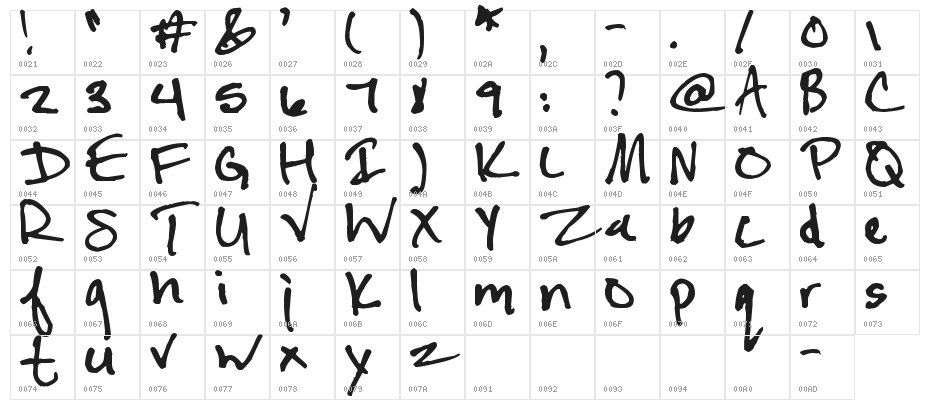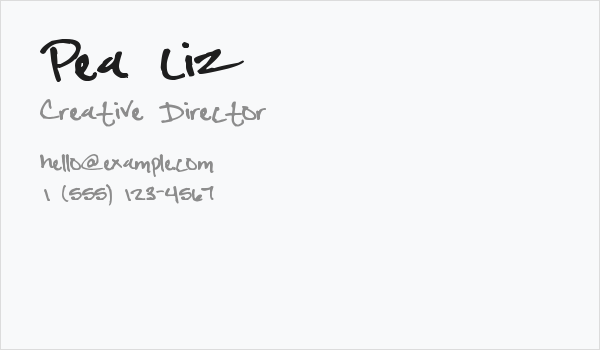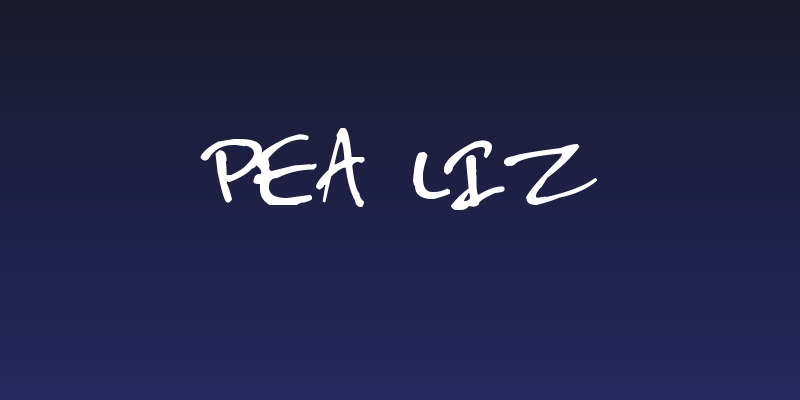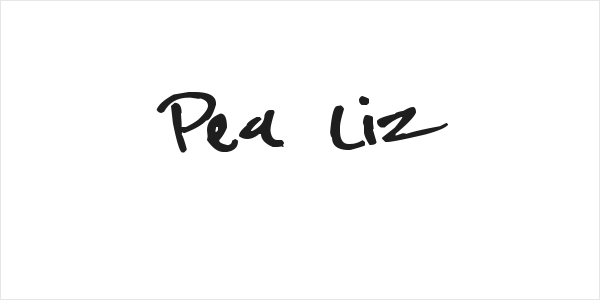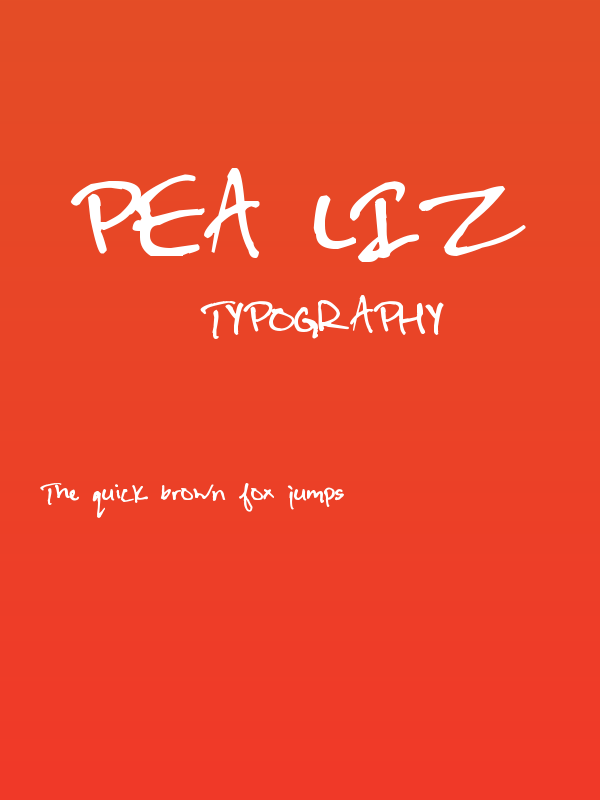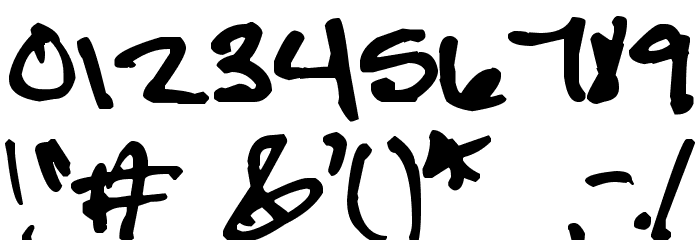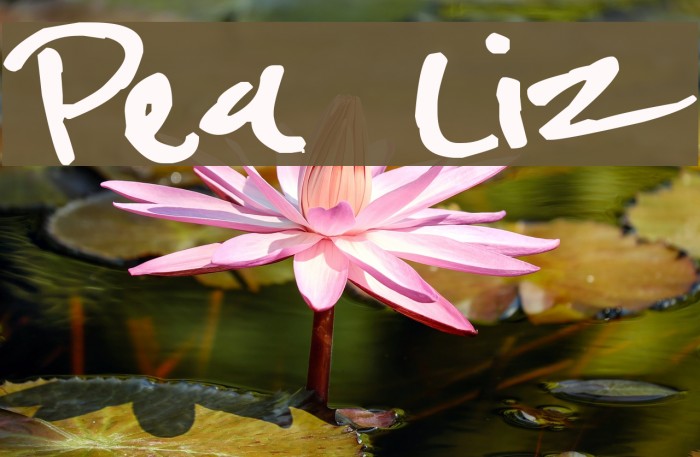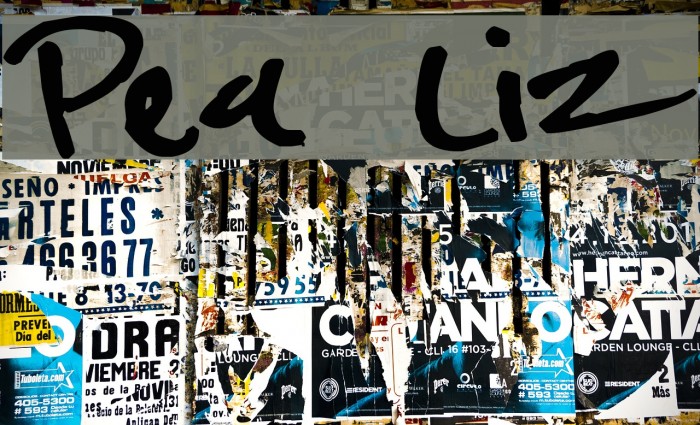
Pea Liz Font
Pea Liz Description
This font exudes a playful and informal style, characterized by its handwritten appearance. The letters are uneven and slightly slanted, giving it a casual and personal touch. The strokes vary in thickness, adding to the dynamic and lively feel of the font. The uppercase and lowercase letters are distinct yet maintain a cohesive look, while the numbers and special characters are crafted with the same whimsical flair. This font is perfect for projects that require a human touch, such as personal notes, creative designs, or informal branding.
| Proposed Projects | Ideal for greeting cards, personal notes, creative posters, and informal branding. |